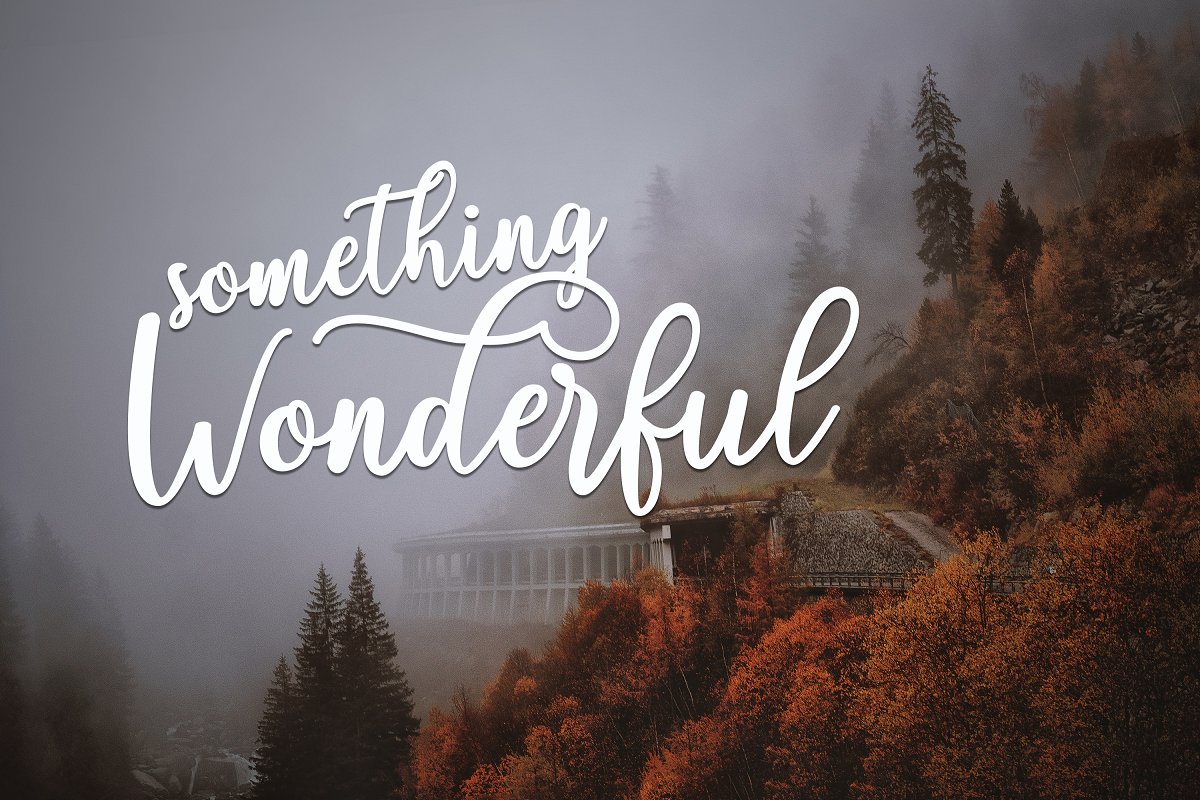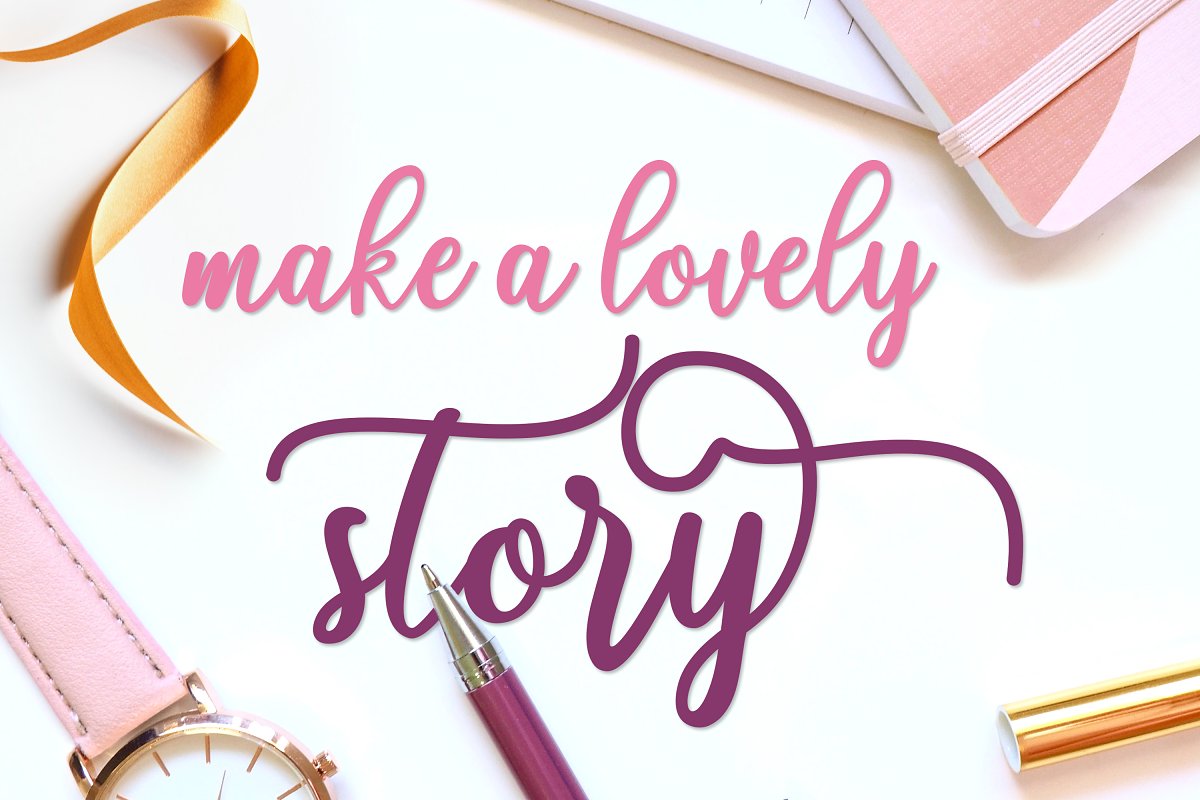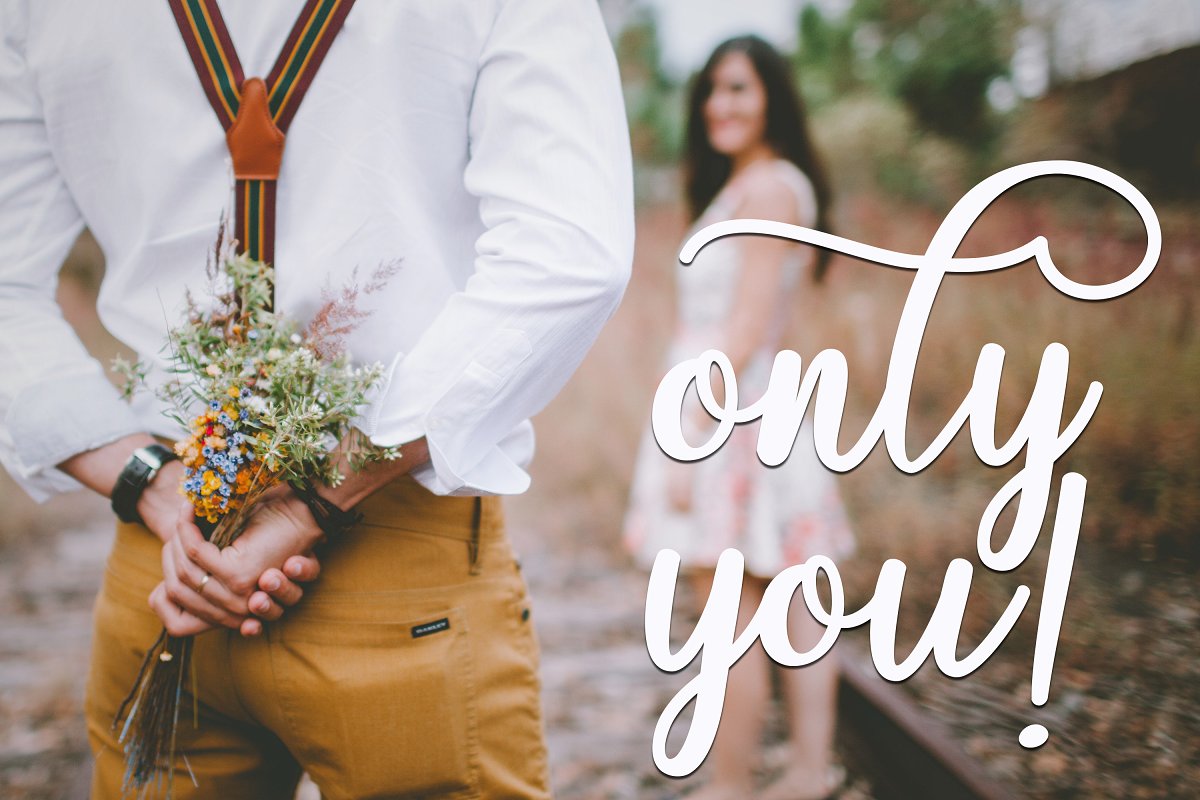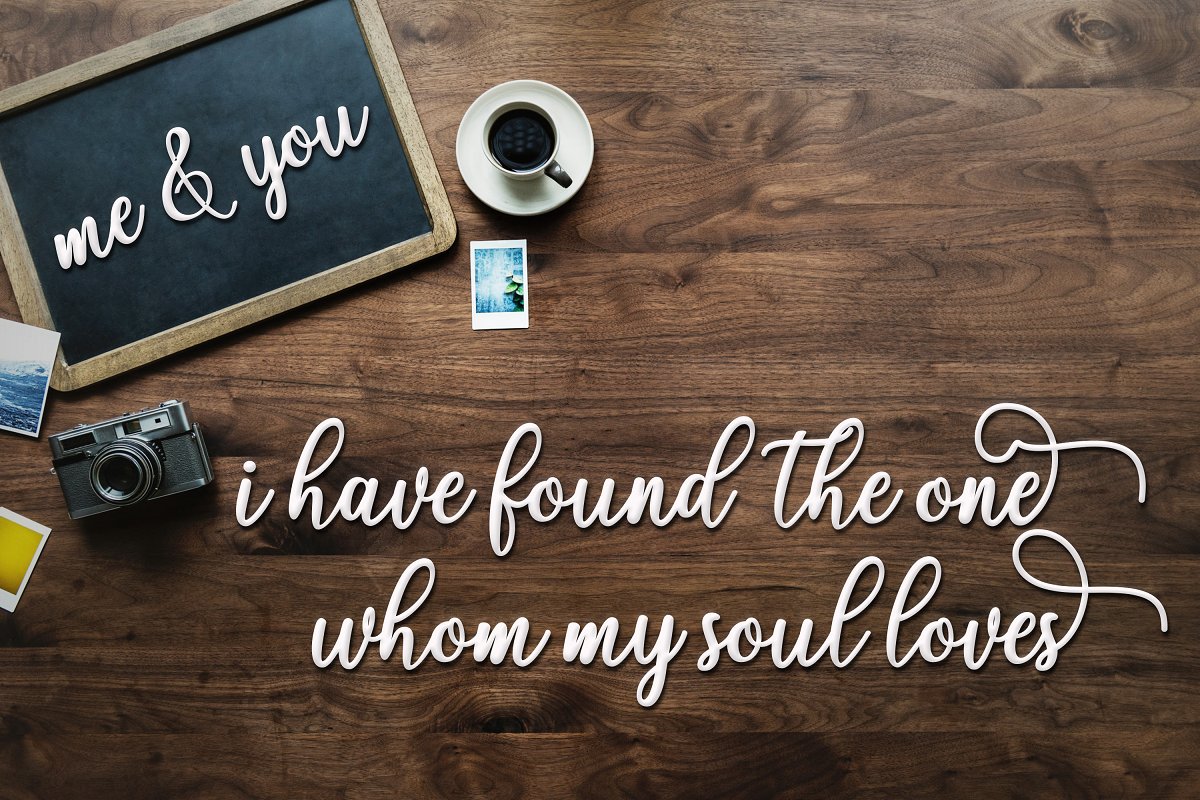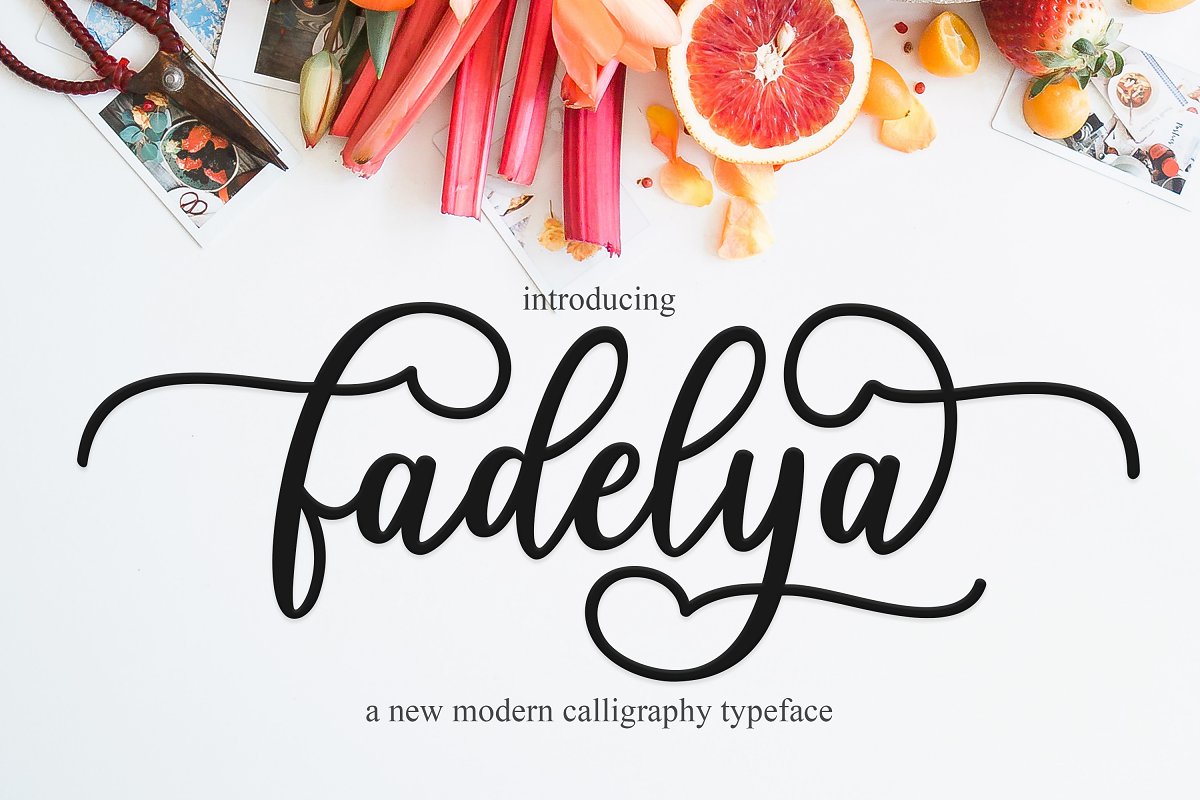
Fadelya Script Font
A new fresh handmade calligraphy font. High quality script font with swashes inspired by modern vintage design. Introducing Fadelya Font. Fadelya is a modern calligraphy font with the current handwriting style, this font is perfect for branding, wedding invites, magazines, mugs, business cards, quotes, posters, and more, you can try first if you want to buy this font.